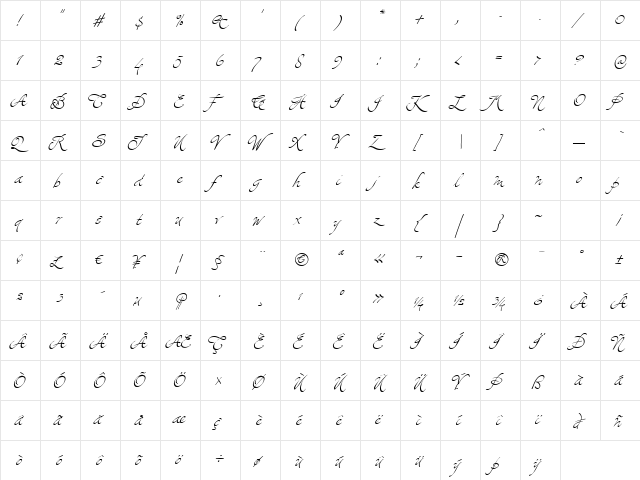
ChristophsQuillITC Regular Font Preview
ChristophsQuillITC Regular
ChristophsQuillITC Regular Font Details
Design Context for ChristophsQuillITC Typeface
ChristophsQuillITC is a composed and adaptable typeface that performs quietly and consistently across a wide range of design contexts.